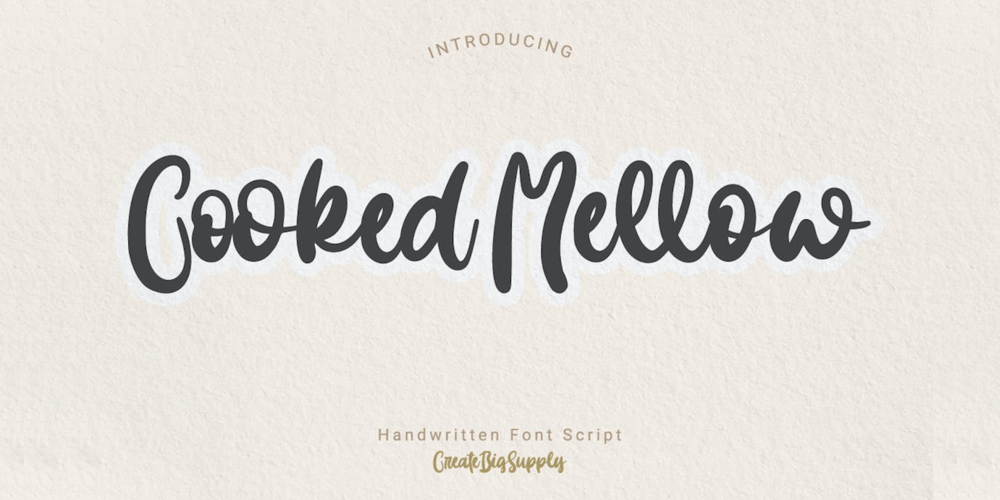
Cooked Mellow
Cooked Mellow font
Cooked Mellow Font Family was designed by Irpan Maulana and published by Create Big Supply. Cooked Mellow contains 1 styles and family package options. With its bold and confident strokes, Cooked Mellow is perfect for a variety of applications, from craft projects and farmhouse decor to websites, SVG designs, home decor, branding, blogs, logos, invitations, and more.The combination of uppercase and lowercase letterforms in Cooked Mellow provides versatility and allows you to create visually appealing compositions. The font also includes a wide range of numbers and punctuations, ensuring you have all the necessary elements for your design needs.Cooked Mellow supports multiple languages, making it suitable for projects targeting diverse audiences. Its extensive character set, including ligatures, offers even more creative possibilities to enhance your designs. With PUA Encoding, accessing additional characters and glyphs is a breeze.